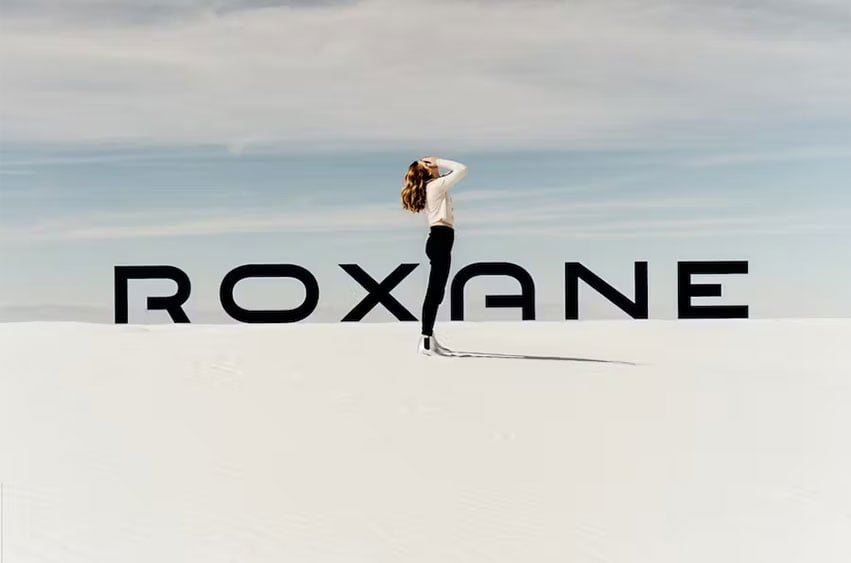
Roxane Font Display is a Unique Modern Elegant Typeface with Web-fonts. It’s a very versatile font that works great in large and small sizes. Roxane Font would be perfect for branding, logos, headlines, Captions. or simply as a stylish text overlay to any background image. Strong capitals and a smooth, open lowercase are effective in a variety of applications. It’s shown a clean, minimalist, warmth, quirky, yet still purposed to be versatile and easy to read.